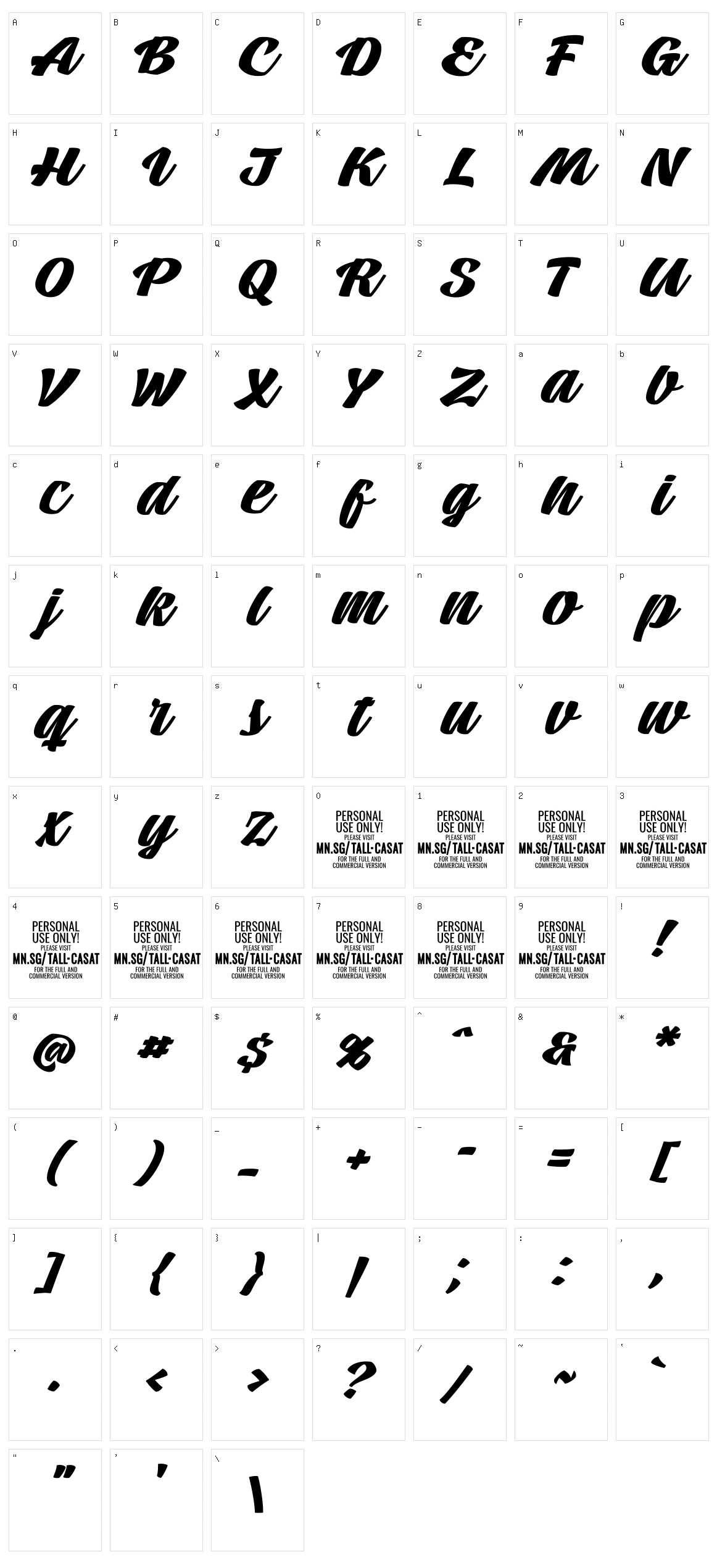
Tall Casat is a attention-grabbing script family.
The typeface is an original creation by Måns Grebäck, built during 2017.
Its five weight has been carefully designed and gives great variation to the font family:
Tall Casat Thin, Tall Casat Light, Tall Casat Med, Tall Casat Bold and Tall Casat Fat.
The font also contains multiple extra OpenType features; including a set of
stylistic alternate characters, a swash alternate alphabet, small caps,
initial and final versions of all letters, ornaments and ligatures.
With its hundreds of glyphs, Tall Casat supports a very wide range of languages.
Use § after a word to make a swash. Example: Casat§
To make different types of swashes, write § followed by 1-9. Example: Casat§6